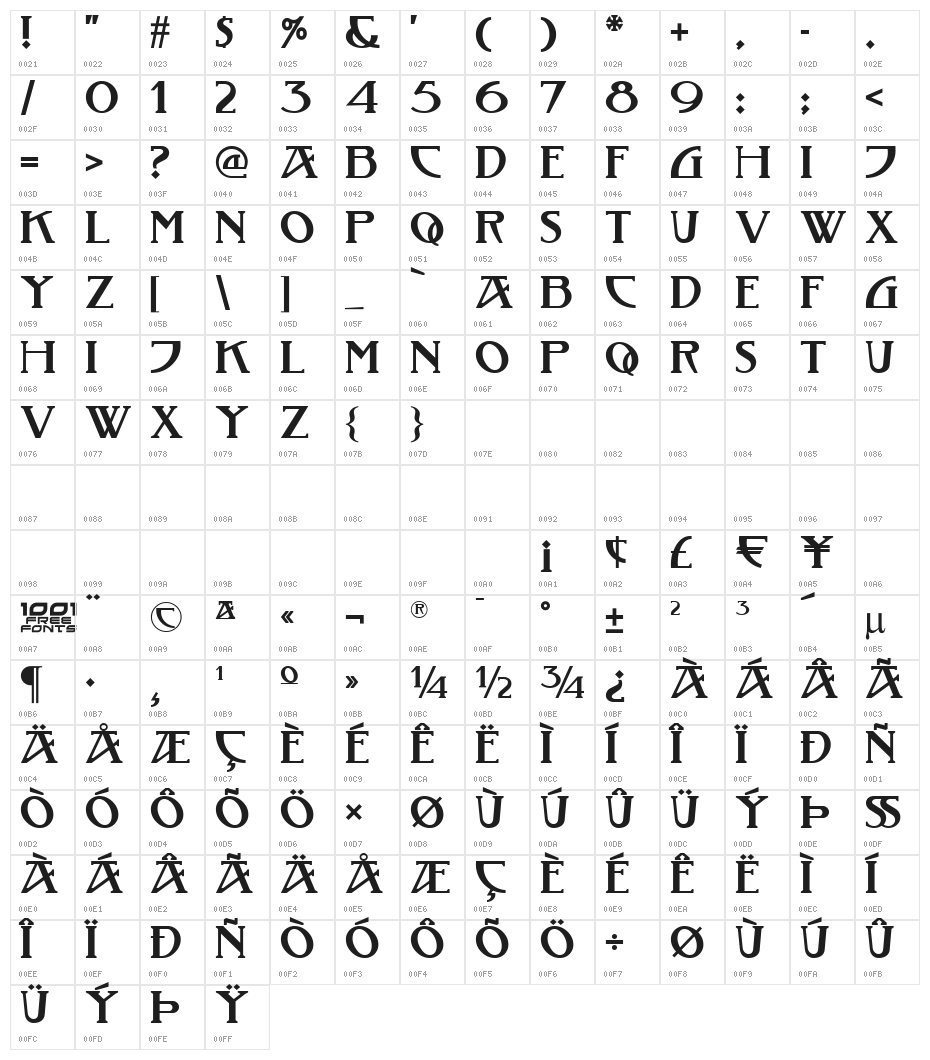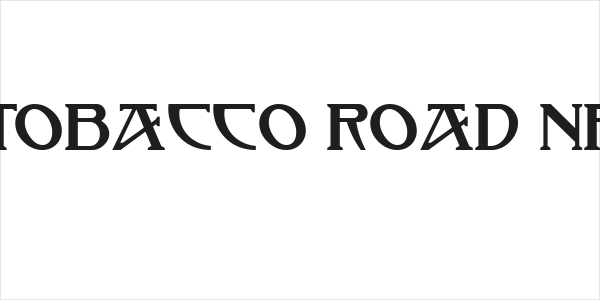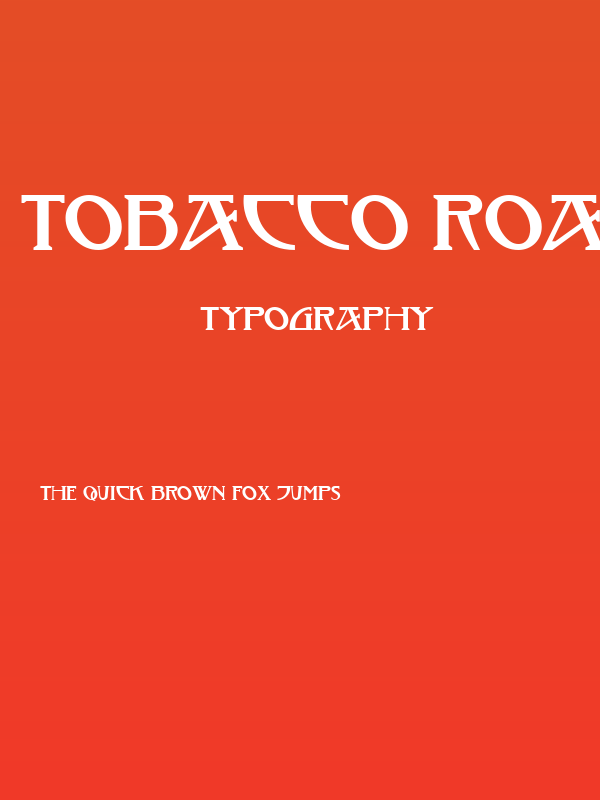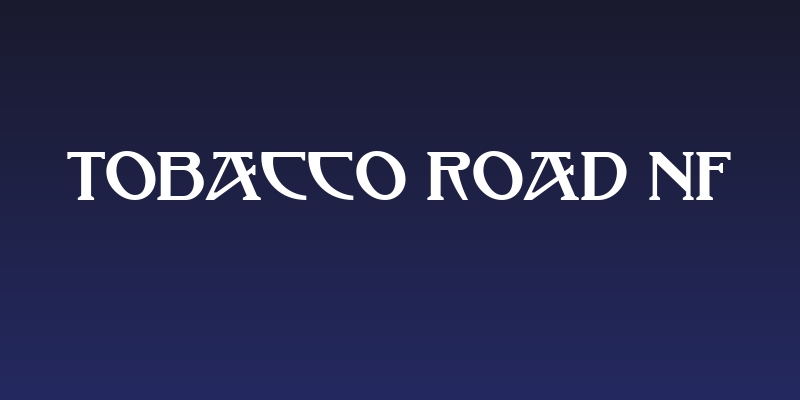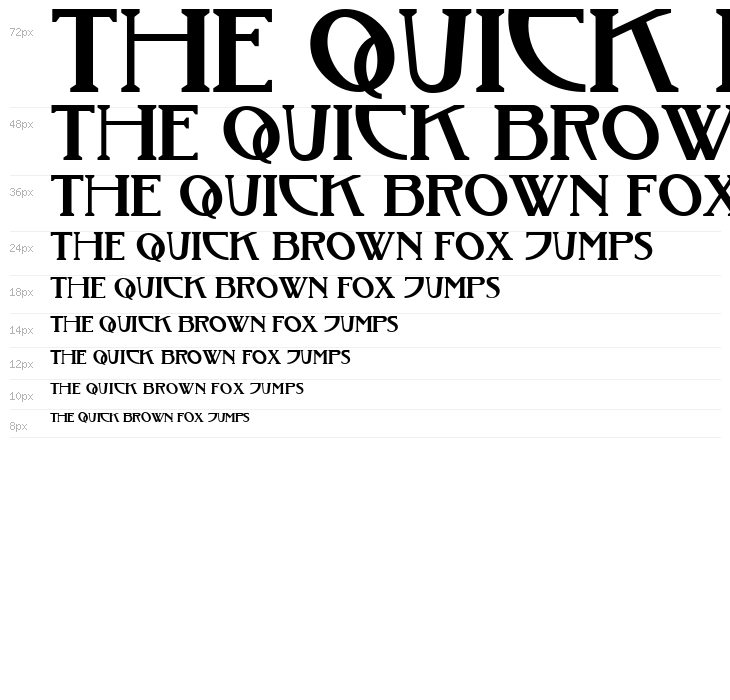
Tobacco Road NF Font
Tobacco Road NF Description
This font features a bold and striking design with a unique blend of geometric and angular elements. The uppercase letters exhibit a strong presence with sharp edges and distinctive curves, creating a sense of movement and energy. The lowercase letters maintain a consistent style, complementing the uppercase with their own unique flair. Numbers are bold and clear, ensuring readability. Special characters are designed with the same attention to detail, making them stand out while maintaining harmony with the rest of the font. The overall design is both modern and classic, making it versatile for various applications.
| Proposed Projects | Ideal for branding, posters, headlines, and any project requiring a bold statement. |